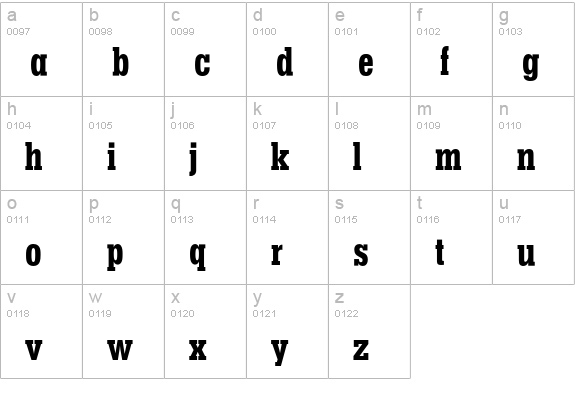
Memphis* Condensed Bold Font Details
Memphis* Condensed Bold is a strong, high-contrast, condensed-width variant in the Memphis* typeface family \xE2\x80\x94 well suited to headlines, attention-grabbing titles, and strong calls-to-action.
Memphis* Condensed Bold font is a striking and versatile typeface that exudes a modern and bold aesthetic. Its condensed design allows for efficient use of space while maintaining a strong presence on any layout or design project. The thick, bold strokes of this font make a bold statement, perfect for headlines, titles, and emphasis. This font is free to download at FontsMarket.com, making it accessible to designers, creatives, and enthusiasts alike. With its clean lines and geometric shapes, Memphis* Condensed Bold font adds a touch of sophistication and style to any project. Whether you are designing a poster, website, or branding materials, this font will elevate your work and make a lasting impression. Download Memphis* Condensed Bold font today and unleash your creativity with this powerful and dynamic typeface.